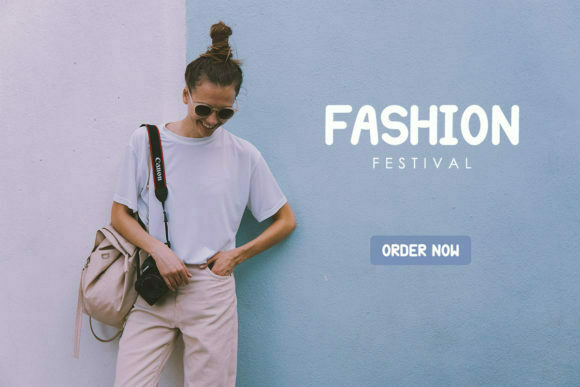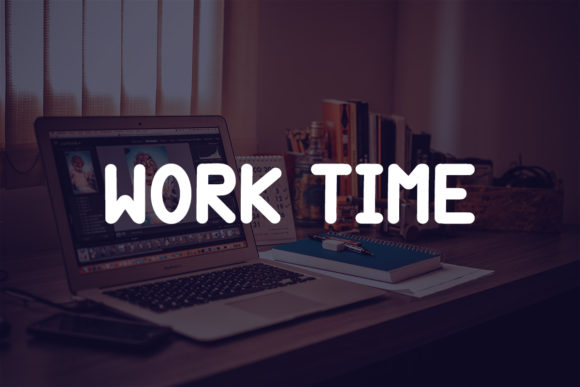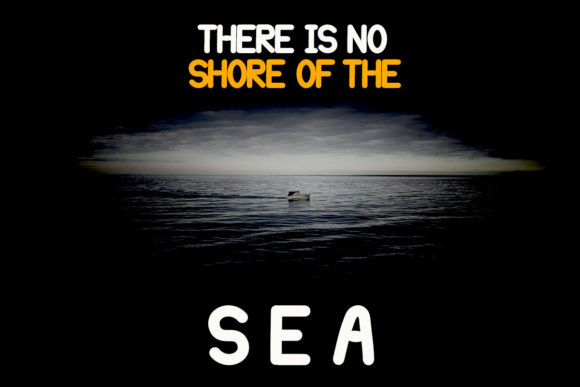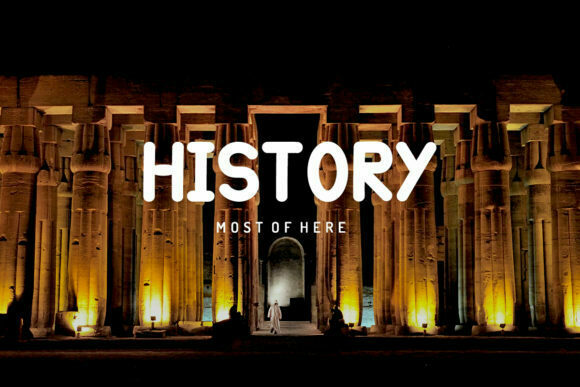
About Forever Font
FOREVER FONT SPECIMEN
Forever is a cool and friendly color font that brings a sense of charm and versatility to your designs. Regardless of the topic, this font is an incredible asset to your font library, as it has the potential to elevate any creation.
With its unique and inviting letterforms, Forever adds a touch of warmth and approachability to your typography. It seamlessly blends style and friendliness, making it suitable for a wide range of design projects and themes.
Whether you’re working on branding materials, social media graphics, invitations, or any other creative endeavor, Forever enhances your designs with its cool and friendly vibe. It creates a positive and welcoming atmosphere, captivating the attention of your audience.
Embrace the coolness and friendliness of Forever and witness how it elevates your designs. With this font, you have a versatile tool to add an element of charm and personality to your projects, making them stand out with creativity and style. Let Forever be the font that enhances your creations and leaves a lasting impression.